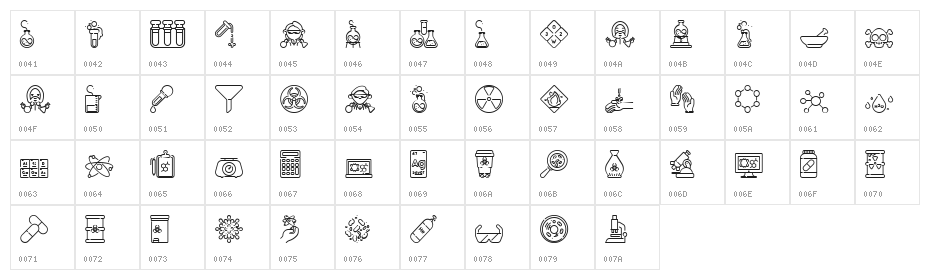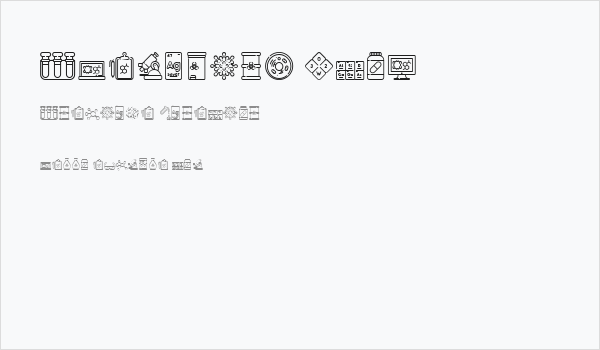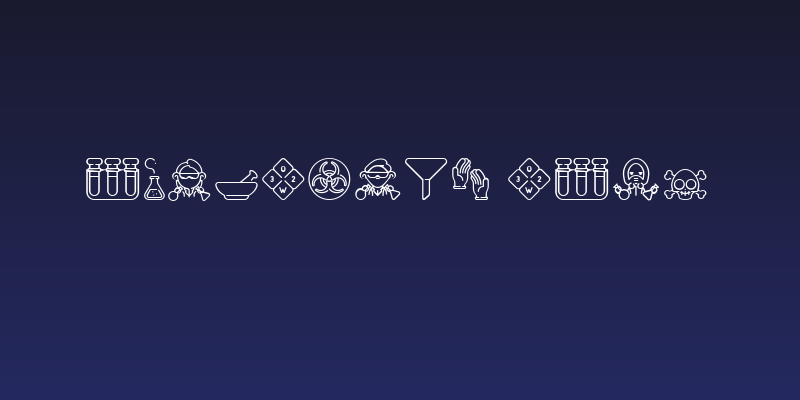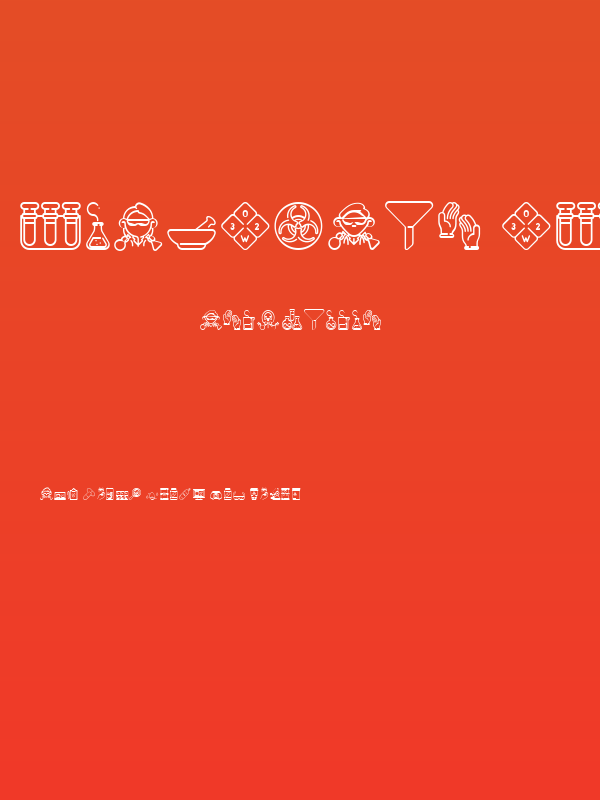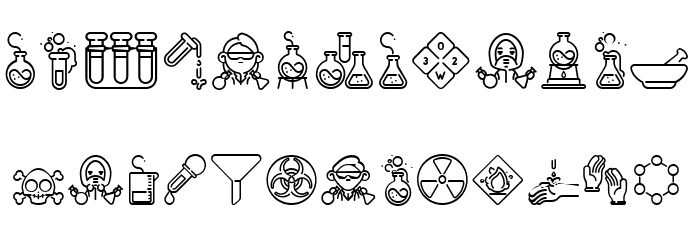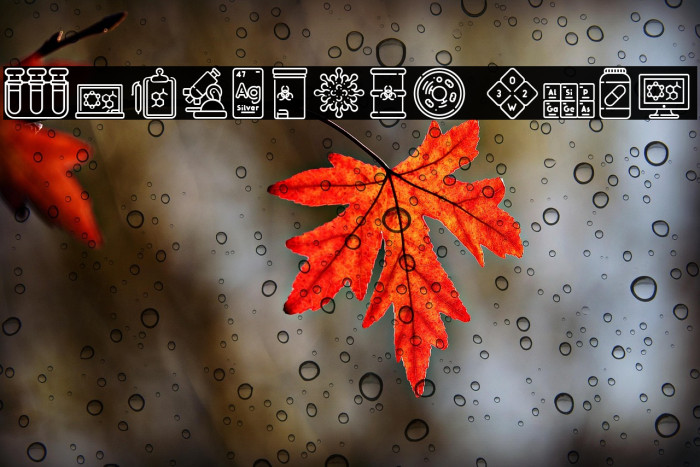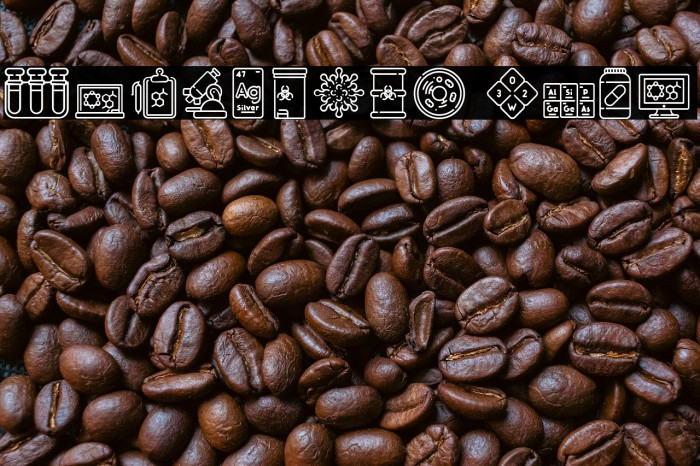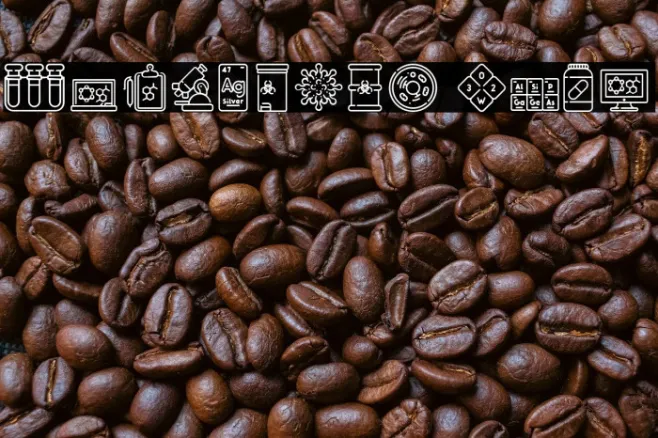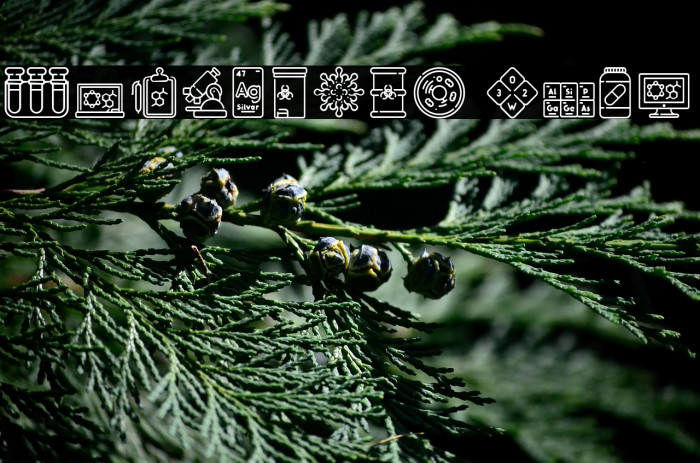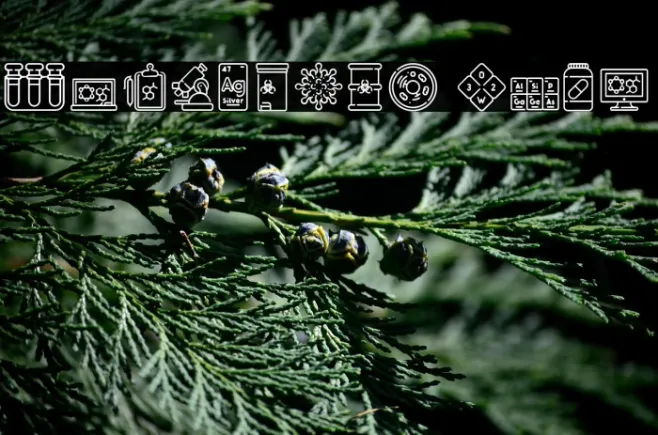
Chemistry Icon Font
Chemistry Icon Description
A collection of chemistry-themed icons rendered in a consistent, outlined style. The icons include laboratory equipment, safety symbols, scientists, molecular structures, and hazard signs. The lines are clean and evenly weighted, with rounded corners and minimalistic details, making the icons easily recognizable and visually cohesive.
| Overall Style | Modern, Minimalistic, Decorative |
| Use Case | Icons, Infographics, Educational visuals, UI elements |
| Proposed Projects | Educational materials, science presentations, infographics, laboratory signage, app interfaces, and STEM posters. |